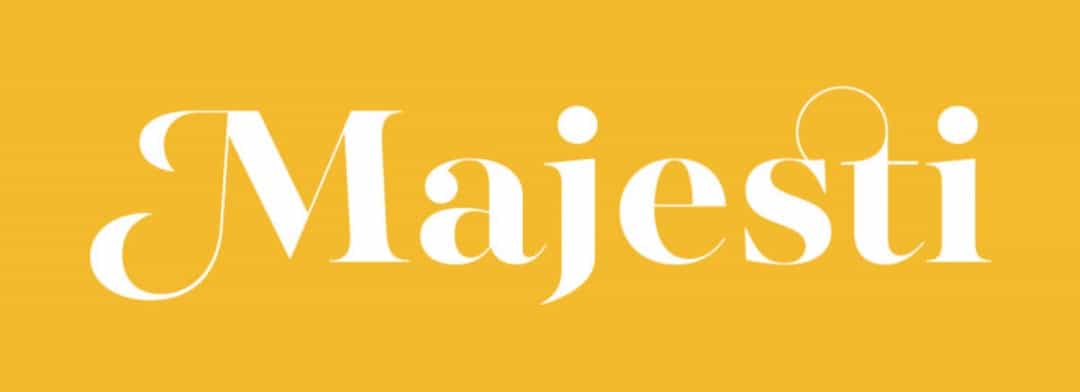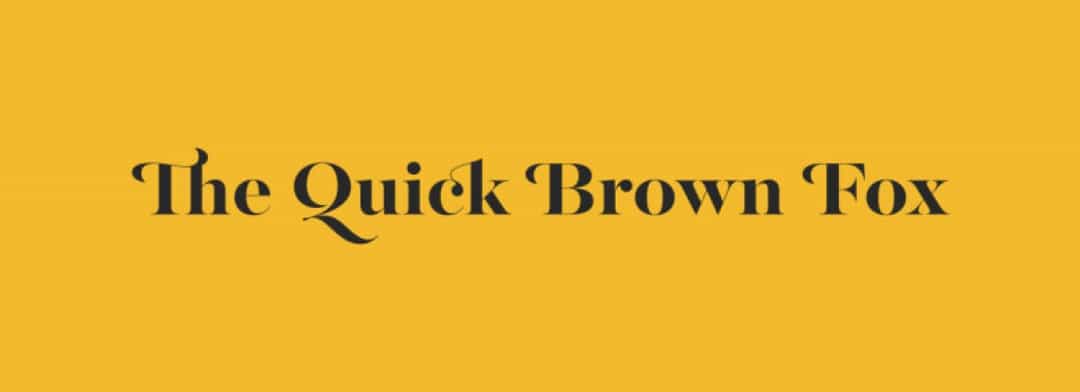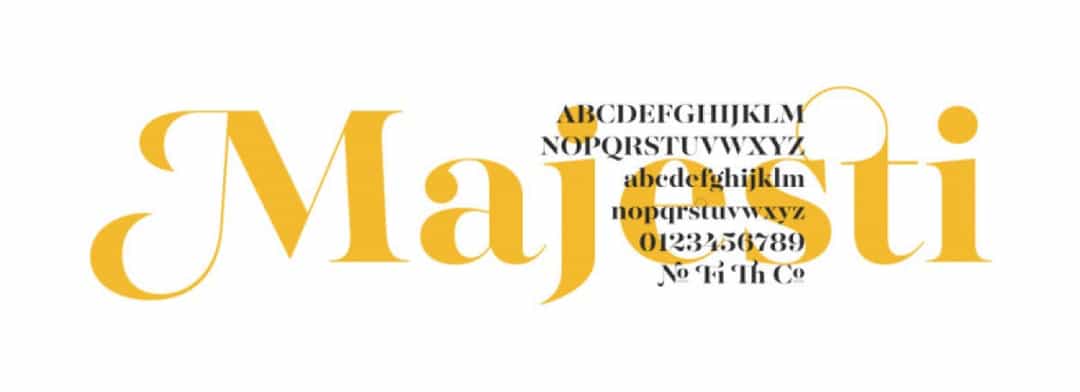
Majesti Banner marks the inaugural release of a brand new font family that will also soon come with display and text versions. It features high contrast letters with ball terminals for ease of reading in large point settings, as well as various OT characteristics to add depth. Majesti Banner comes in five weights along with matching italics that perfectly complement its use as webfont.